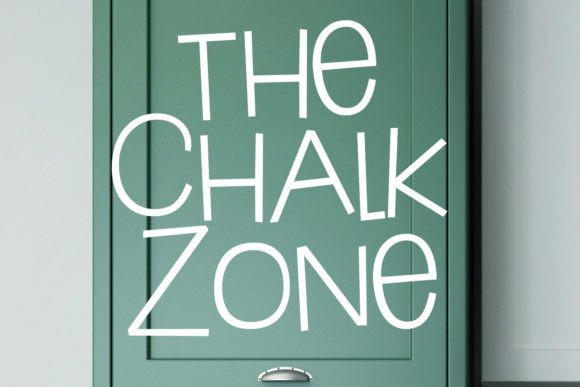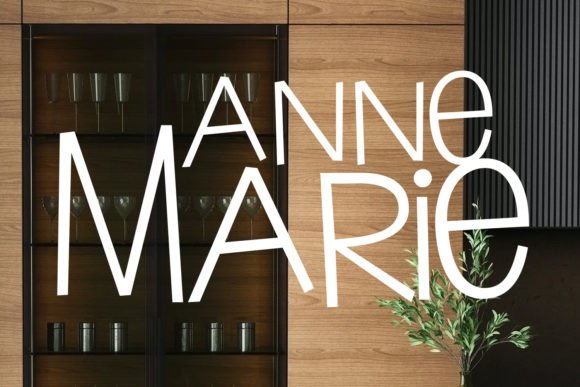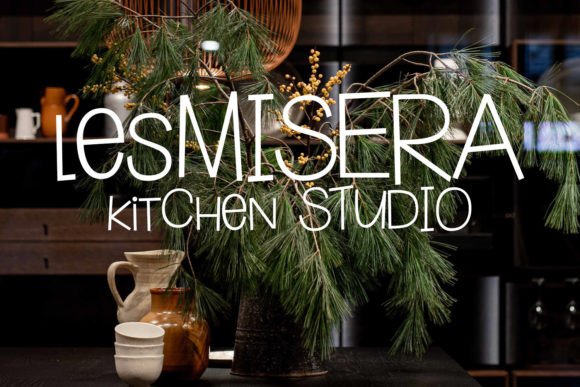
Introduction to Mister Smiley Font
Mister Smiley is a quirky and bouncy handwritten sans serif font.
Masterfully designed to become a true favorite, this font has the potential to bring each of your creative ideas to the highest level .